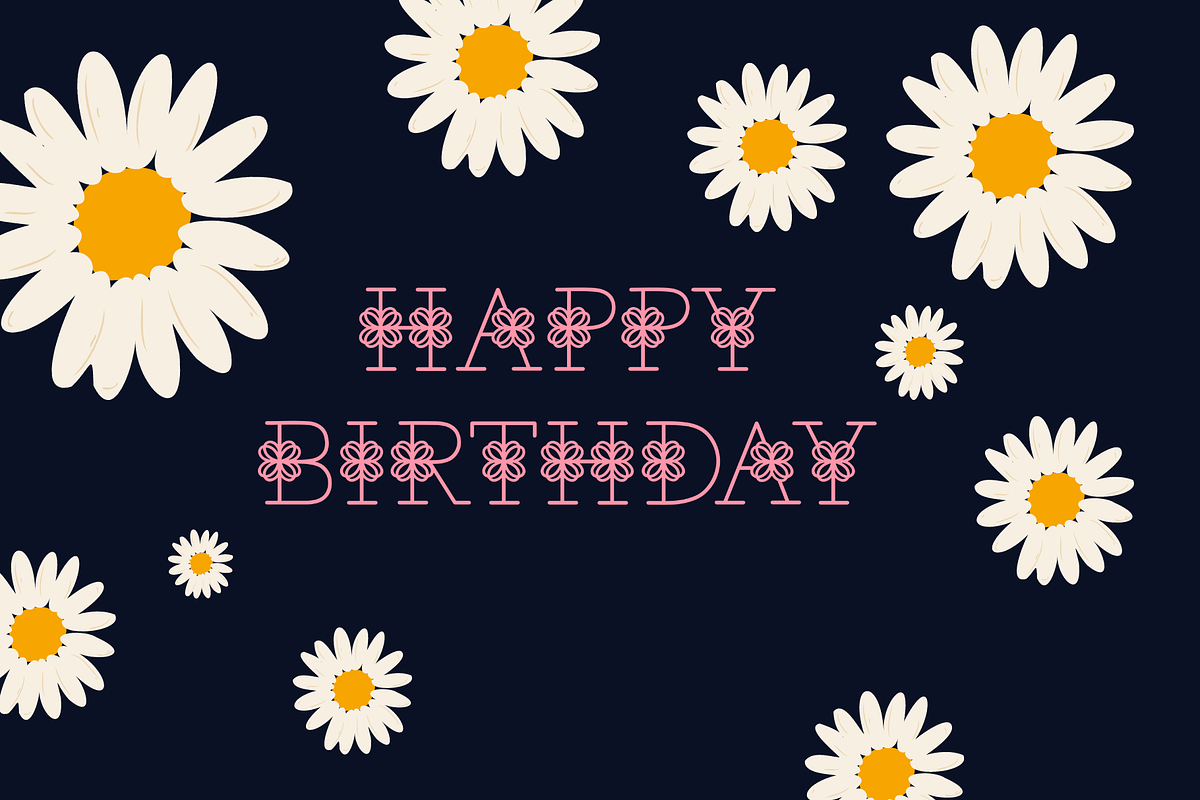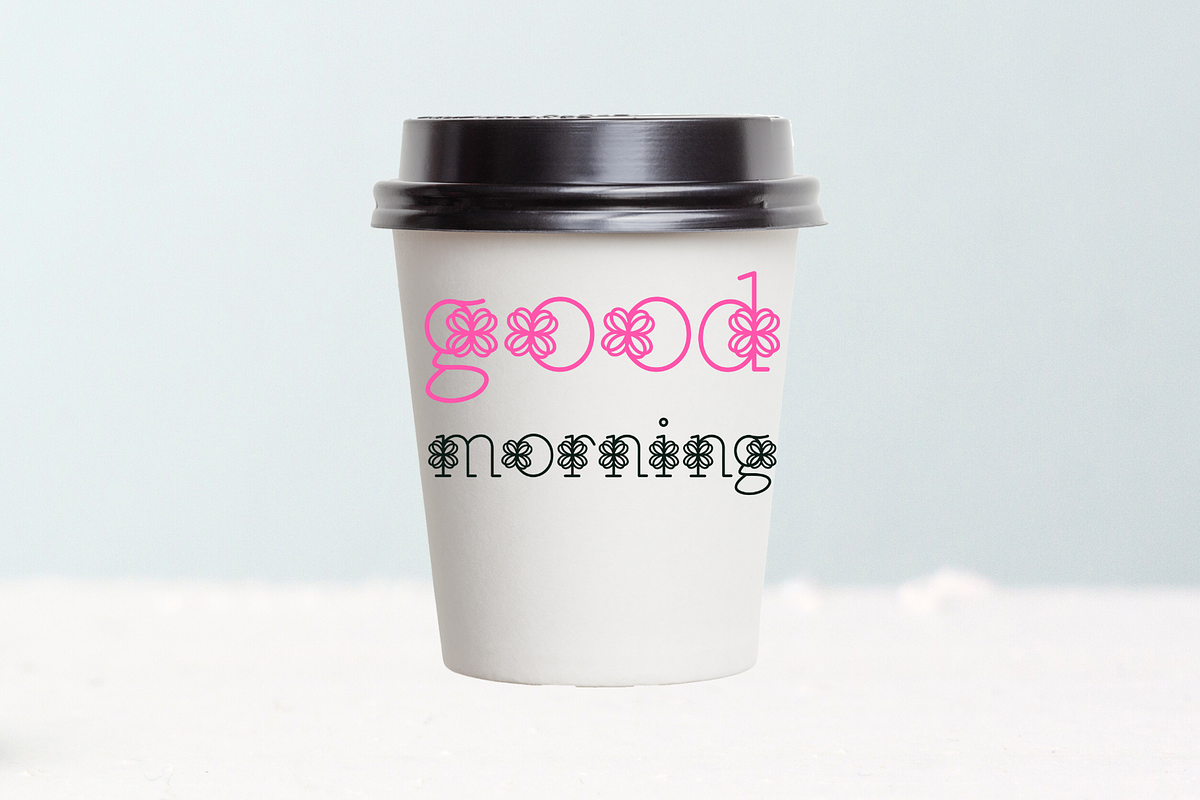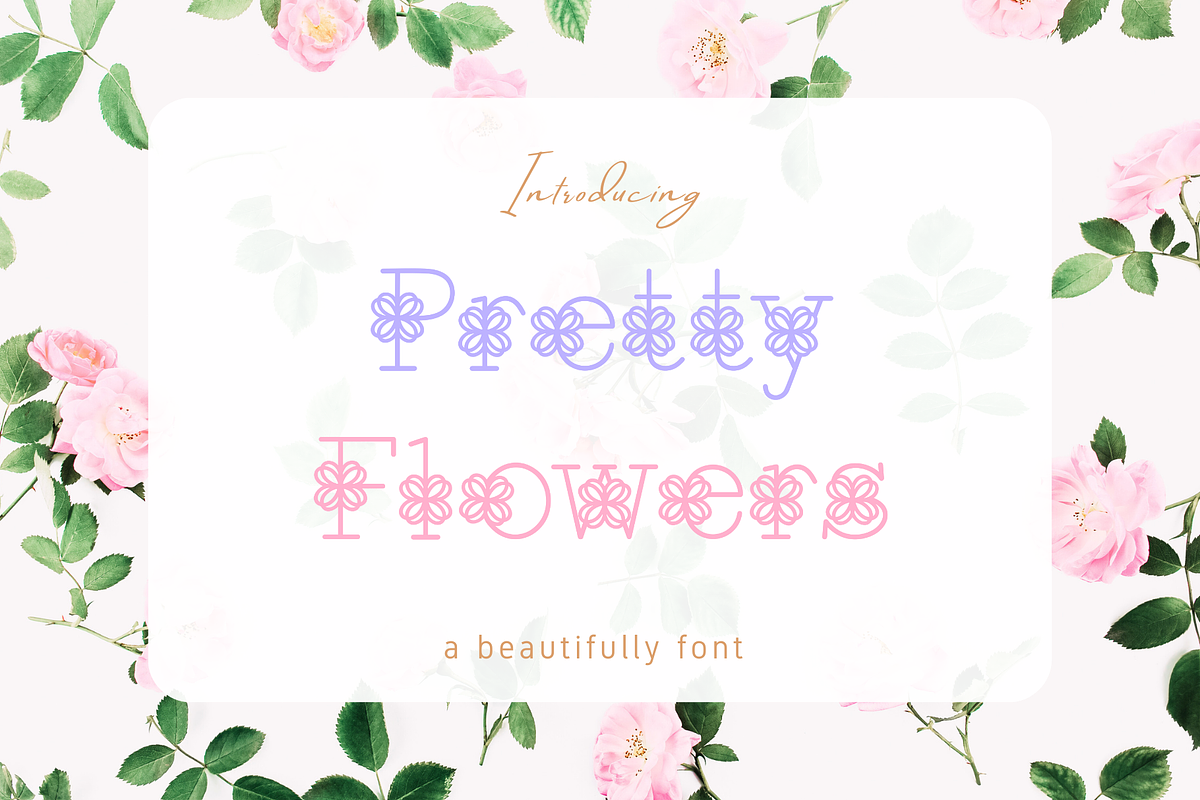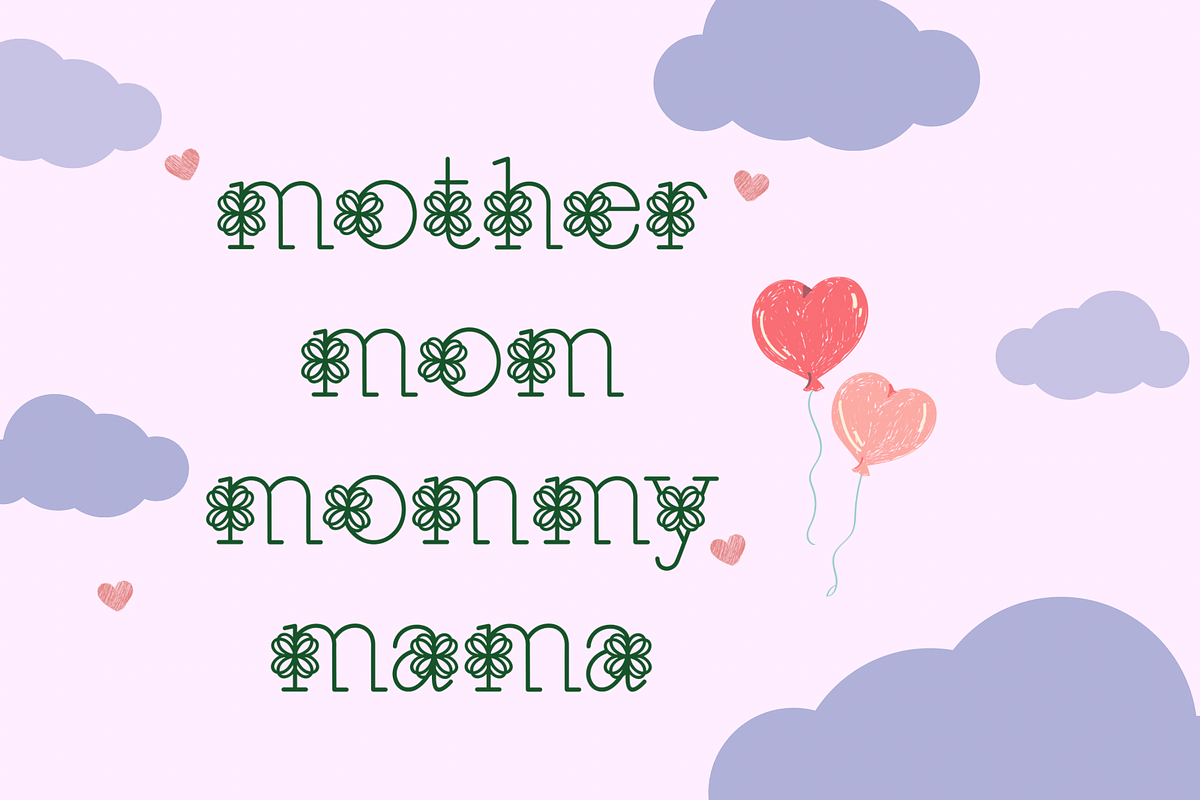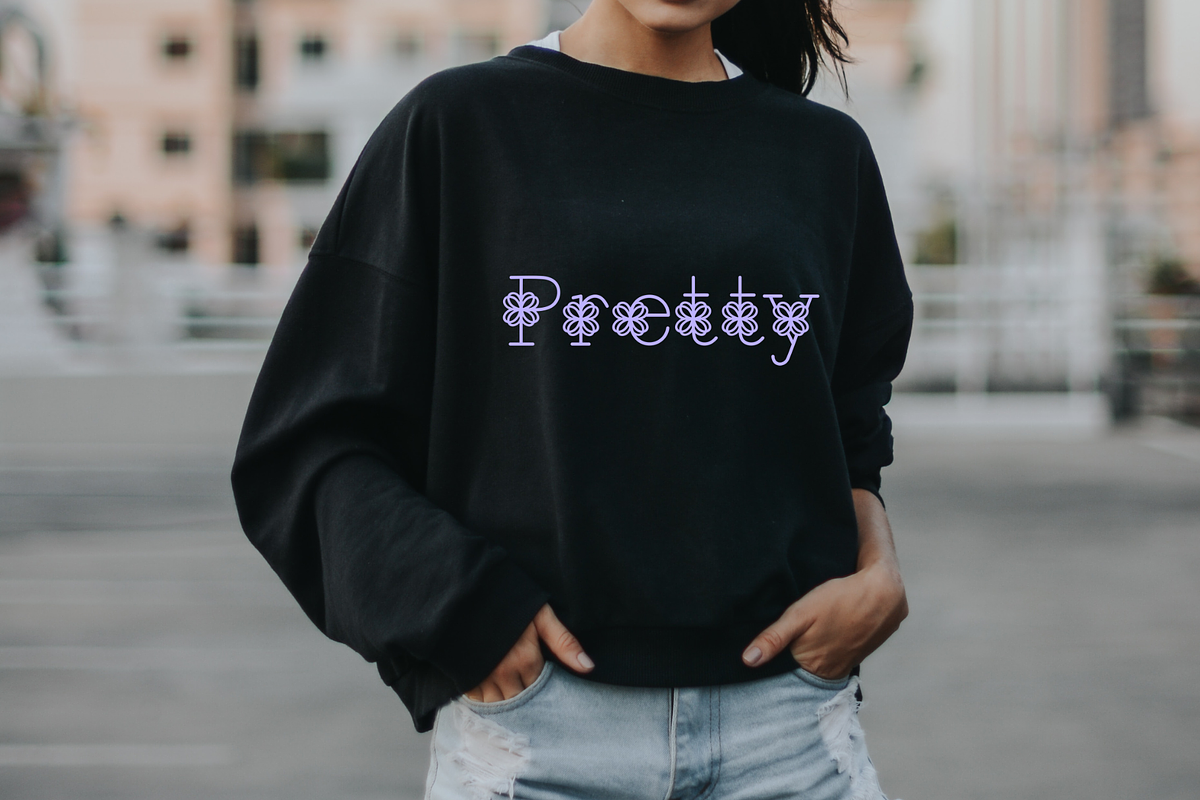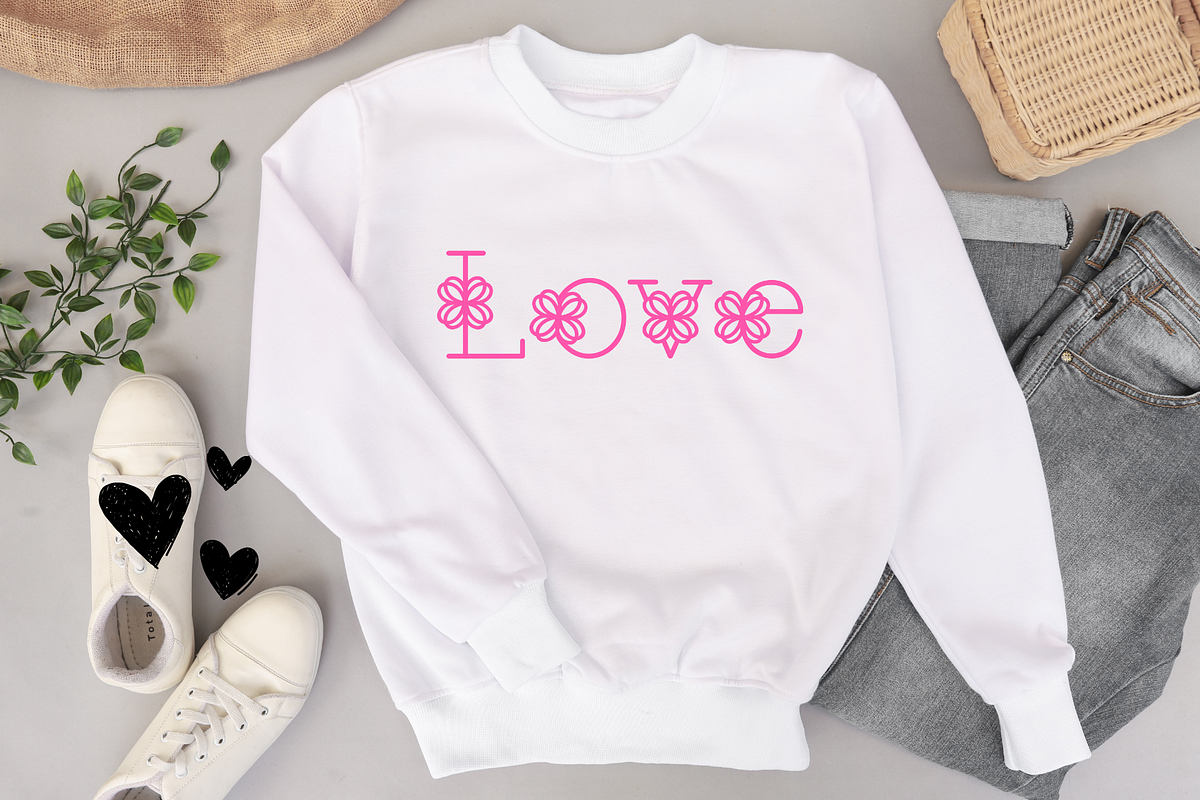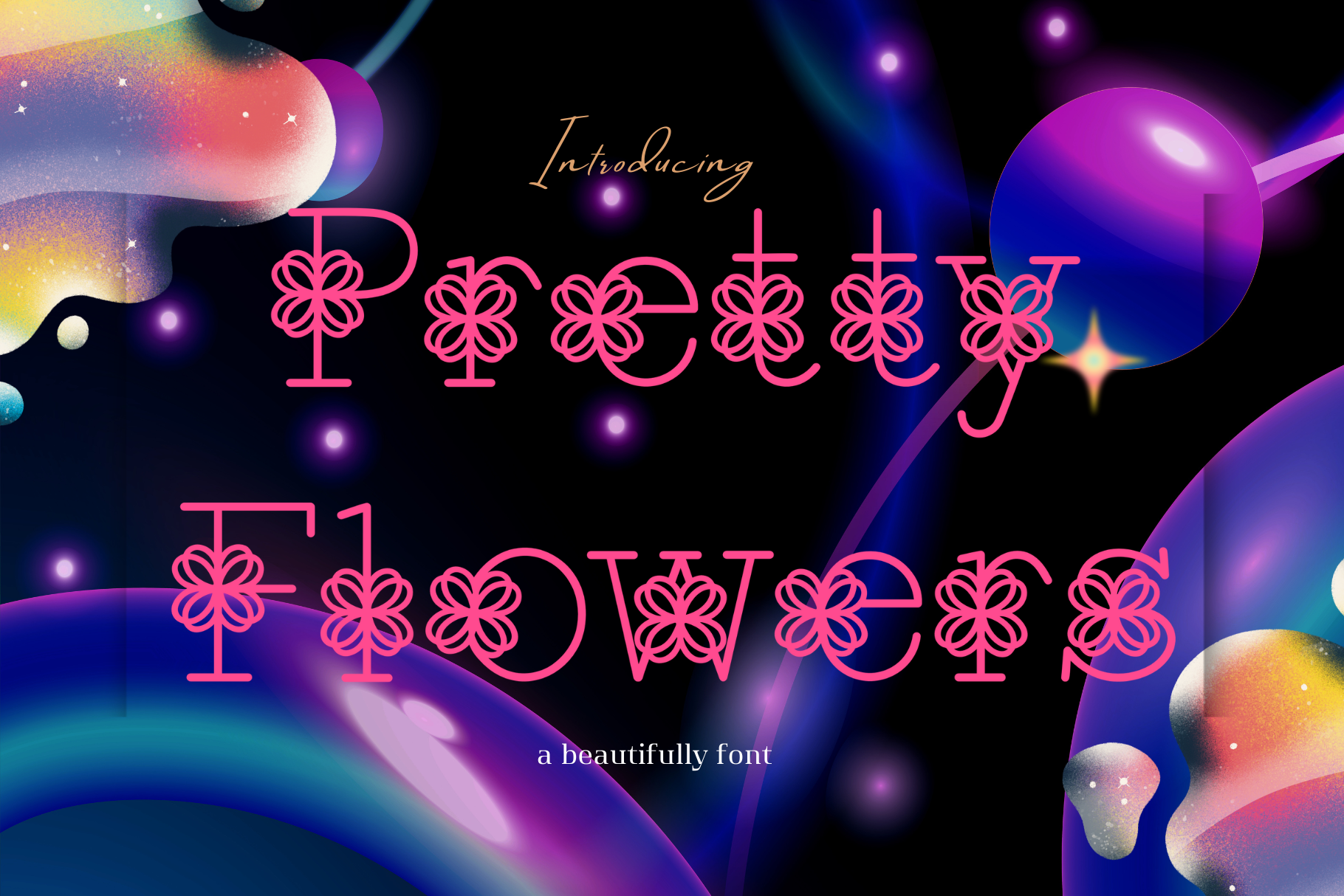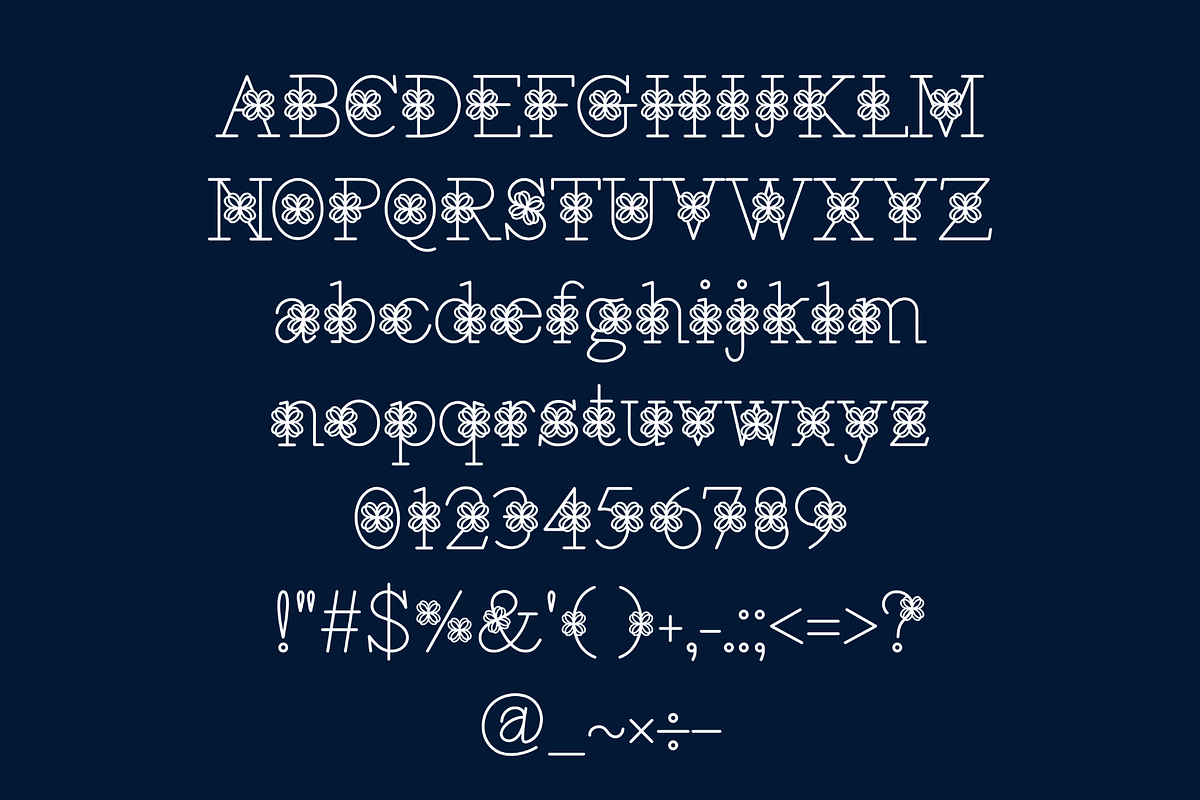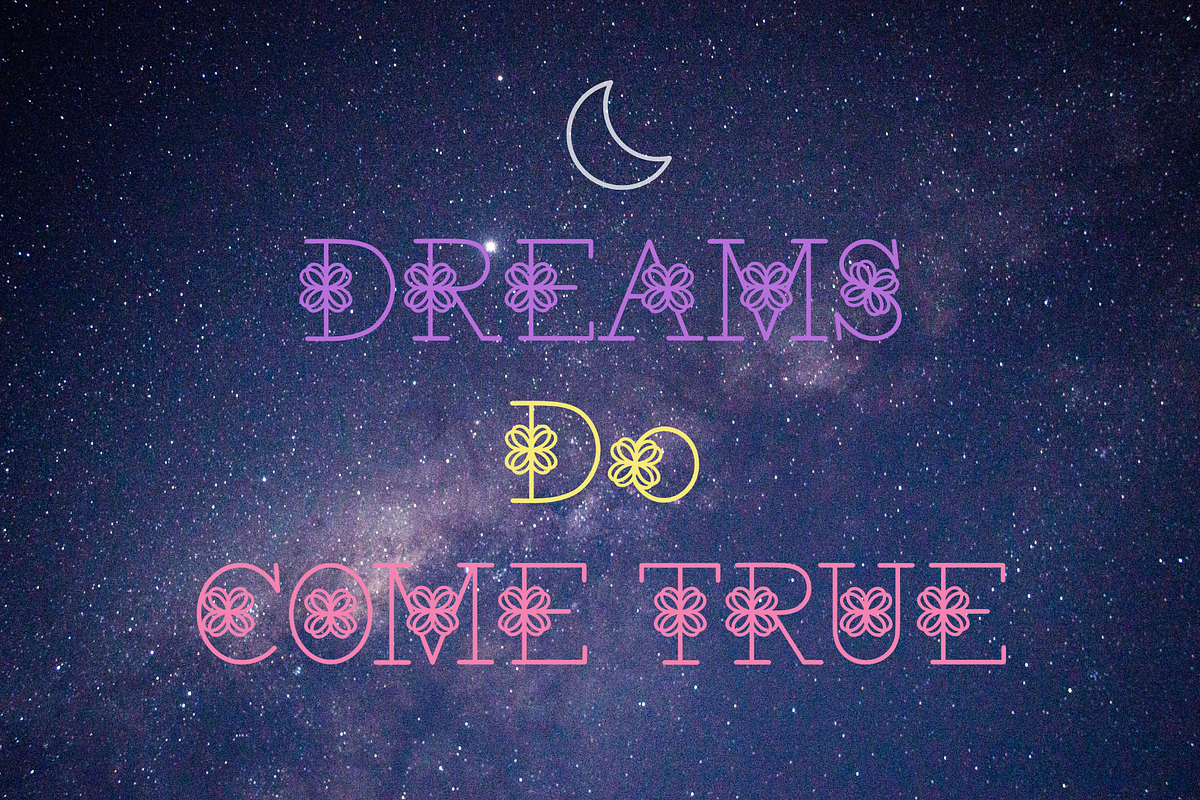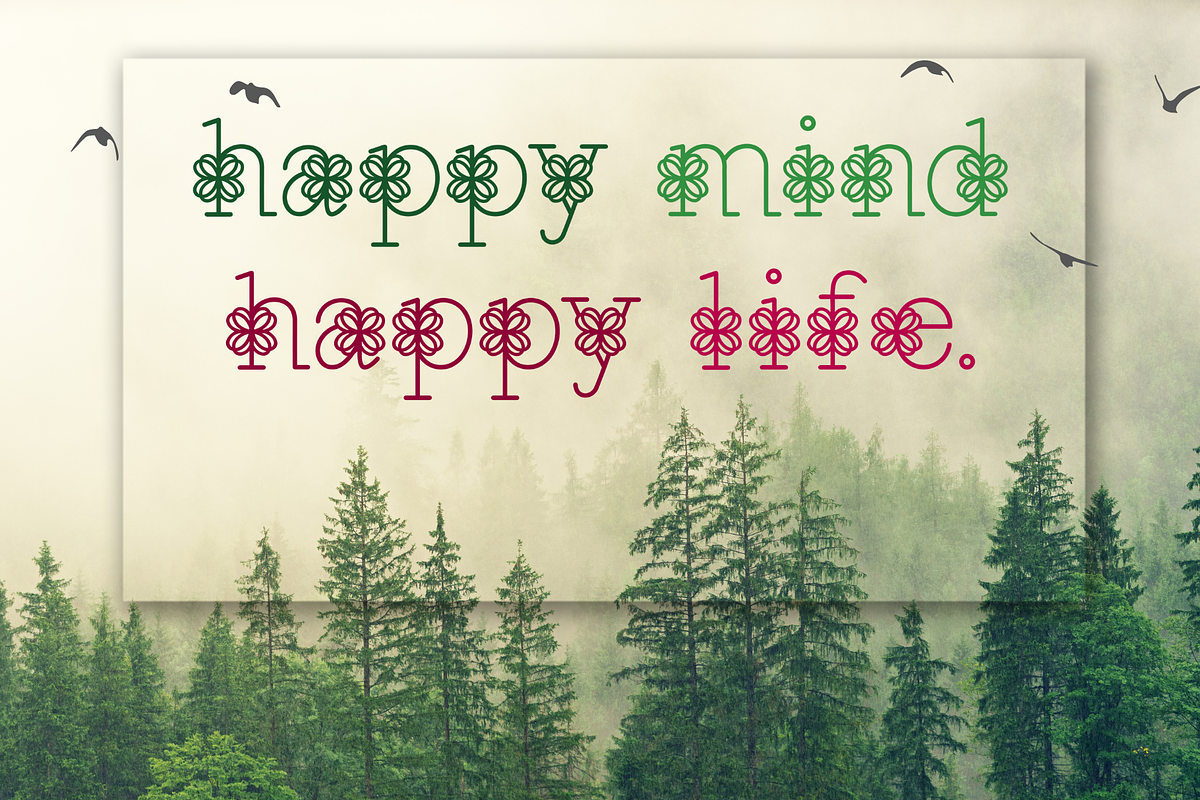
Pretty Flowers Font
Pretty Flowers is an adorable, beautiful decorative font. Whether you use it for cartoon-related designs, spring crafts, children’s games, or just any creation that requires a lovely touch, this font will be an amazing choice.